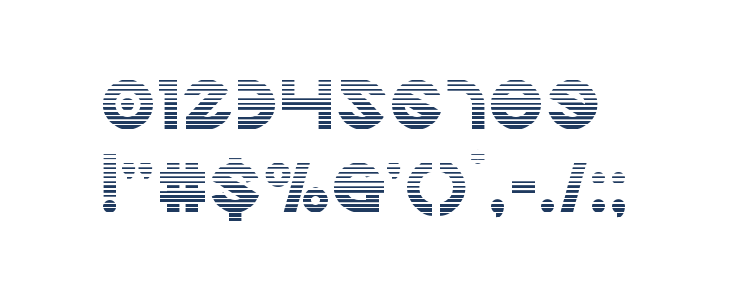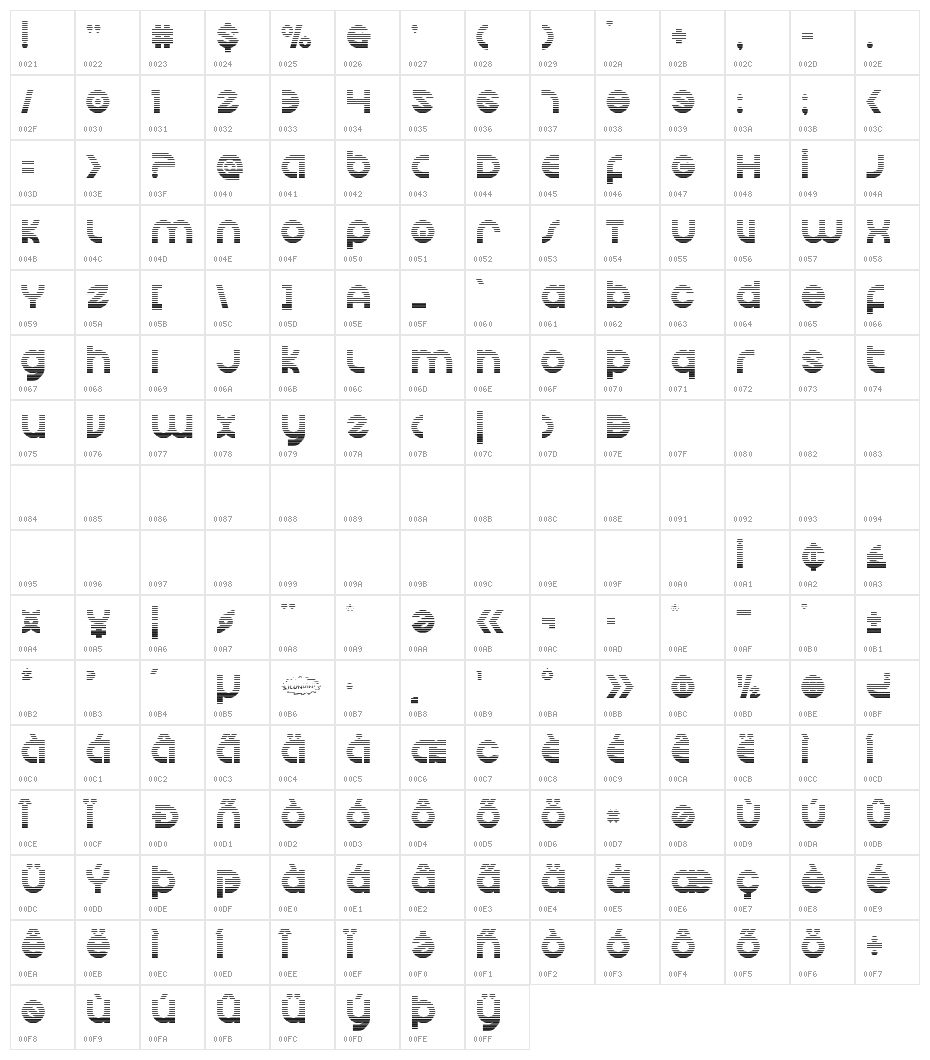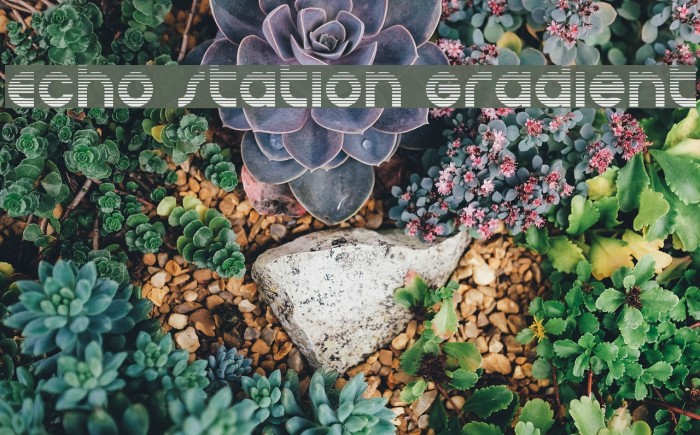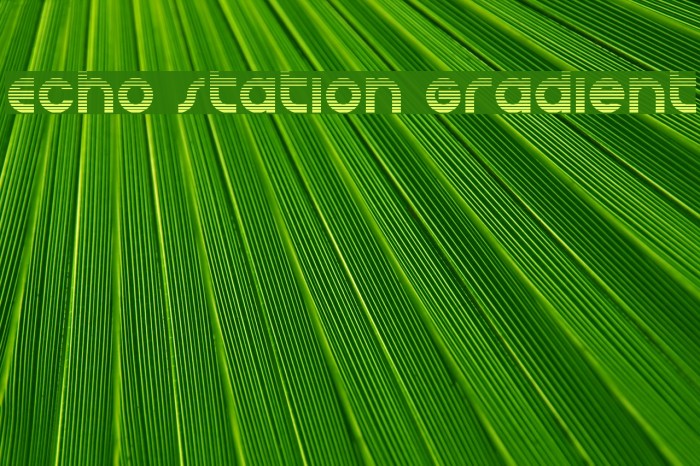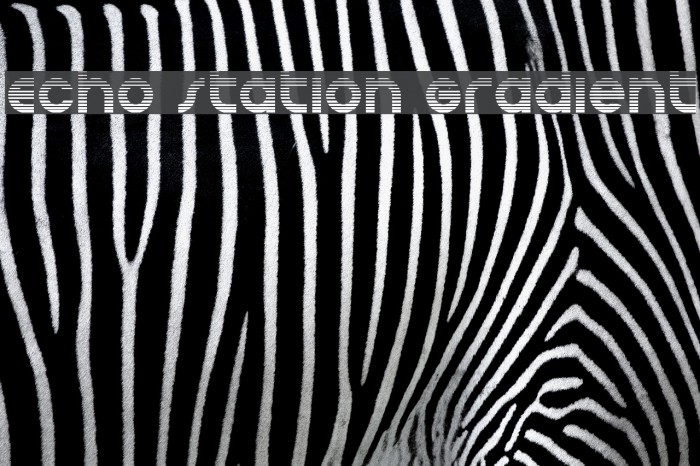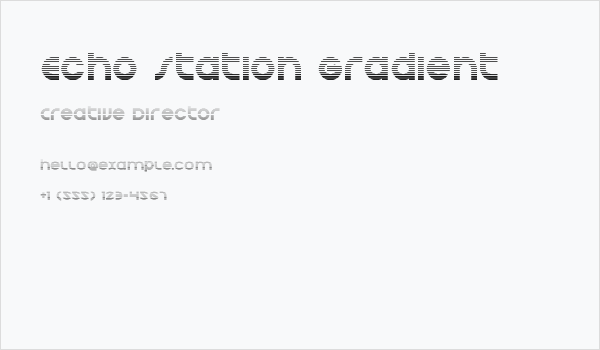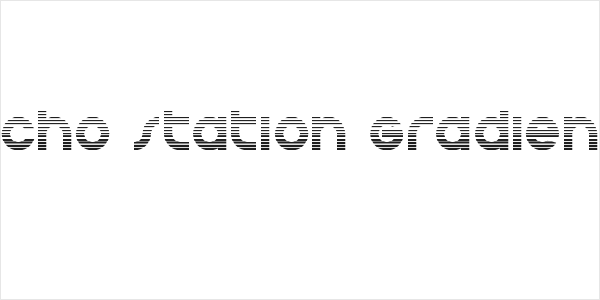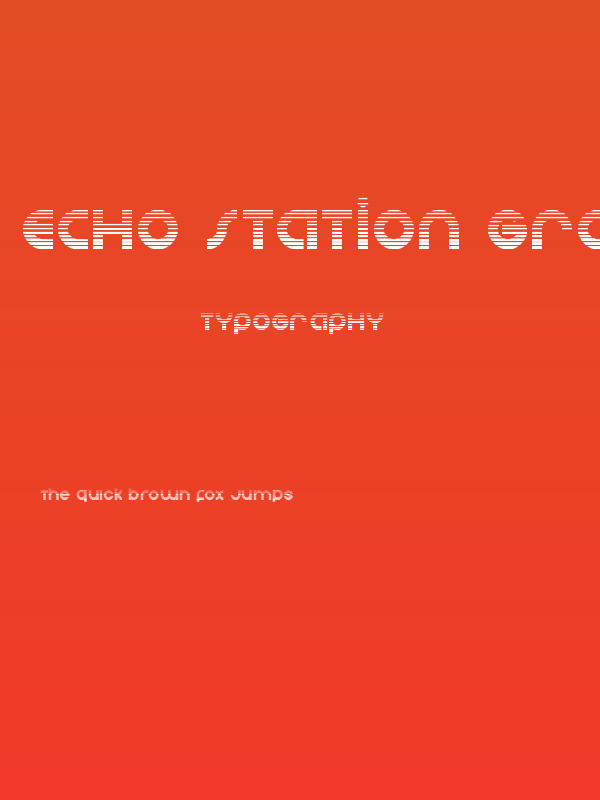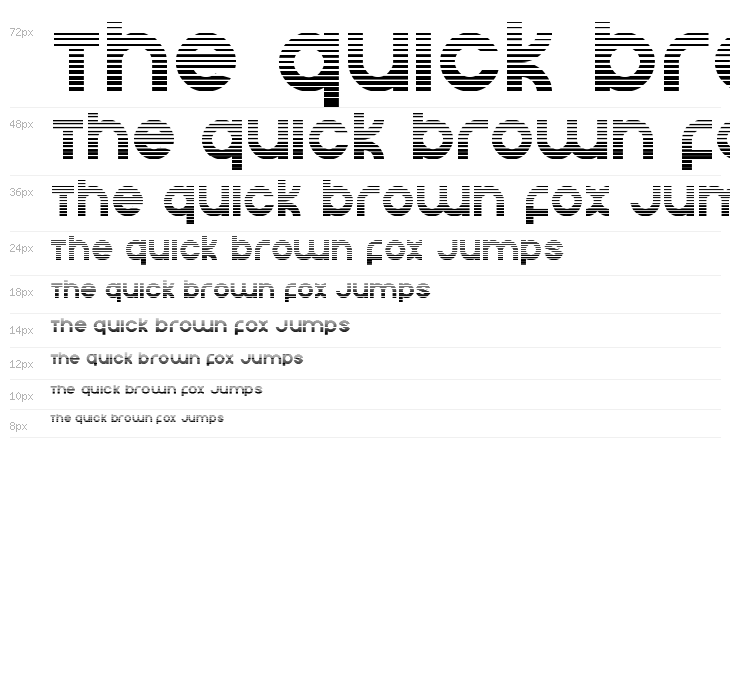
Echo Station Gradient Font
Echo Station Gradient Description
This font features a unique design characterized by horizontal stripes that create a gradient effect across each character. The letters are bold and rounded, with a futuristic and digital aesthetic. The consistent use of stripes gives it a distinct, eye-catching appearance, making it suitable for modern and tech-oriented designs. The uppercase and lowercase letters maintain a uniform style, while the numbers and special characters are crafted to match the overall theme. This font's innovative design makes it stand out, offering a fresh take on traditional typography.